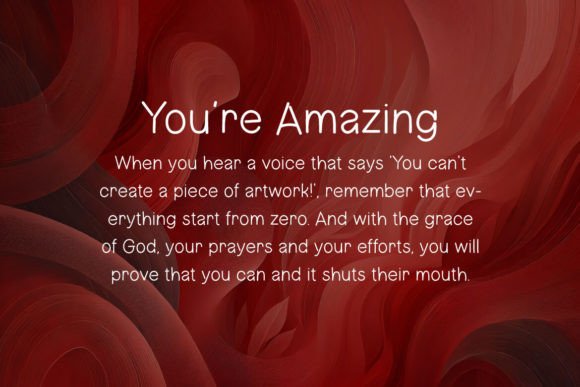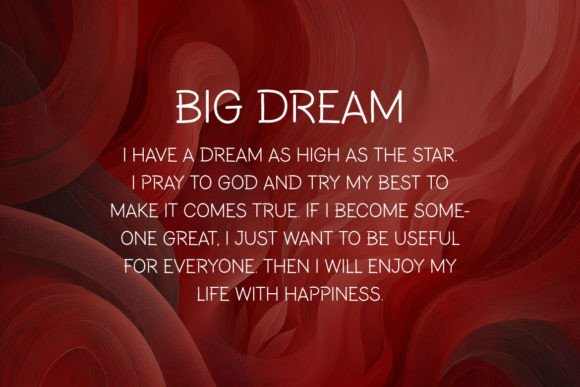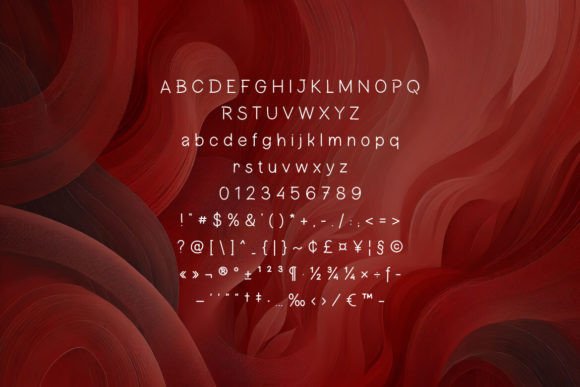
Introducing Blazter Font: Elevate Your Designs with Sleek Modernity
In the world of typography, fonts play a pivotal role in defining the aesthetic and tone of any creative project. Whether you’re a designer, craftsperson, or simply someone who loves dabbling in creative endeavors, finding the right font can make all the difference. This is where Blazter Font comes into play – a sleek and modern handwritten font designed to add a personal and stylish touch to your projects.
The Essence of Blazter Font
Blazter is not just any ordinary font; it’s a masterpiece crafted to bring a blend of elegance and approachability to your designs. Its clean and smooth strokes offer a versatile look that is adaptable to a wide range of applications. From branding and logos to social media graphics, invitations, and more, Blazter ensures that your text stands out with a unique flair.
Key Features of Blazter Font
• Sleek and Modern Design: Blazter boasts a contemporary style that is both eye-catching and sophisticated, making it perfect for designers looking for a modern touch.
• Handwritten with Precision: The font’s handwritten nature adds a personal touch to any project, giving it a more human and relatable feel.
• Versatile Application: Its adaptability makes it suitable for various uses, including but not limited to, branding, digital media, print materials, and personal crafts.
• Optimized for Readability: Blazter is fully optimized for readability, ensuring that your text is clear and comprehensible in both digital and print formats.
• Elegant yet Approachable: The font strikes a perfect balance between elegance and approachability, making it ideal for projects that require a touch of sophistication without being too formal.
Applications of Blazter Font
The versatility of Blazter Font makes it a valuable asset for a myriad of projects. Here are some of the areas where Blazter truly shines:
• Branding and Logos: Create a lasting impression with a logo that exudes modernity and elegance.
• Social Media Graphics: Stand out on social media platforms with eye-catching graphics that incorporate Blazter for a personalized touch.
• Invitations and Cards: Add a touch of sophistication to your invitations, greeting cards, and other personal correspondence.
• Digital and Print Media: Whether it’s a website, blog, brochure, or poster, Blazter ensures your message is conveyed with style and clarity.
Why Choose Blazter Font?
In a sea of fonts, Blazter stands out for several reasons:
• Unique Flair: It offers a unique blend of modernity and personal touch that is hard to find in other fonts.
• Simplicity with Elegance: Blazter embodies the perfect balance of simplicity and elegance, making it suitable for a wide audience and various design needs.
• Readability: Its optimization for readability ensures that your designs are not just beautiful but also effective in communication.
Blazter Font is more than just a typeface; it’s a design statement that can elevate your creative projects to new heights. Its sleek and modern design, coupled with its versatility and readability, makes it an indispensable tool for designers and crafters alike. Whether you’re aiming to create a brand identity, craft beautiful invitations, or simply add a stylish touch to your digital content, Blazter is the ultimate choice for those who love simplicity with a unique flair. Embrace Blazter Font in your next project and experience the difference it can make.